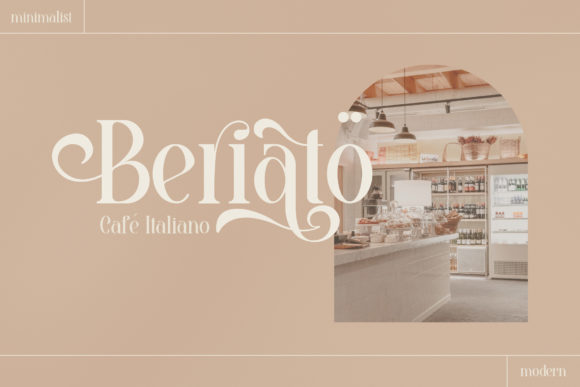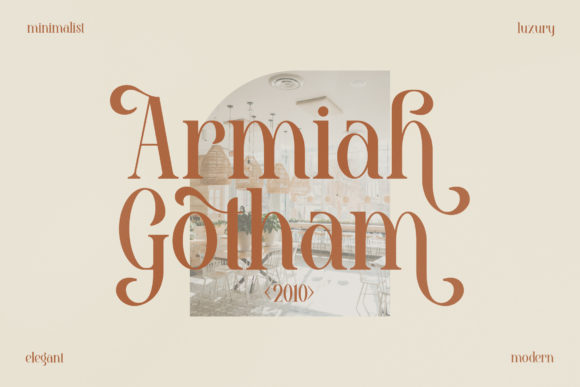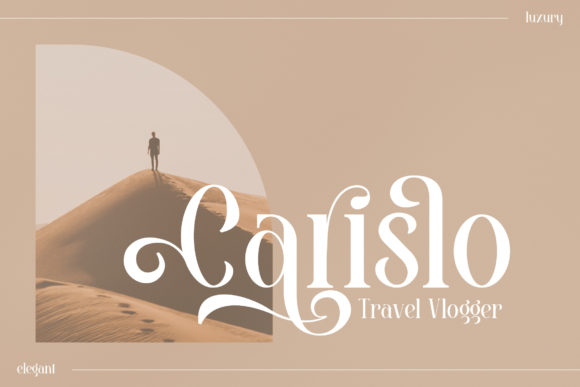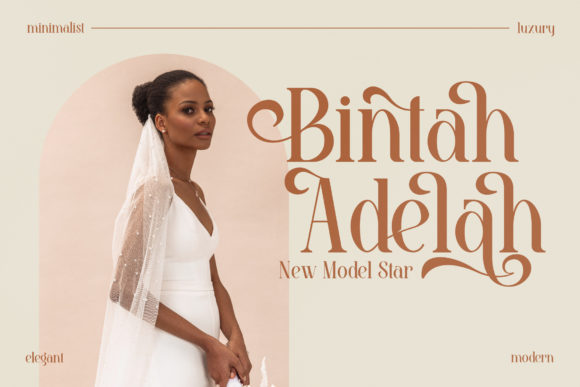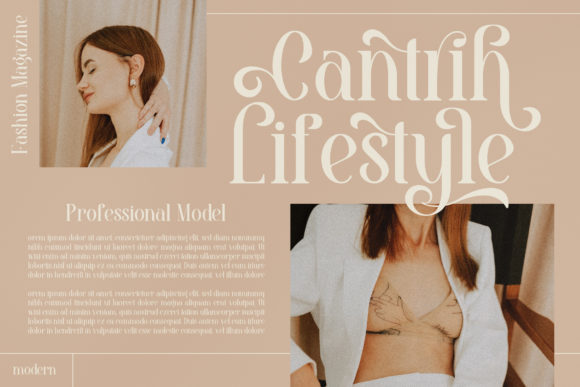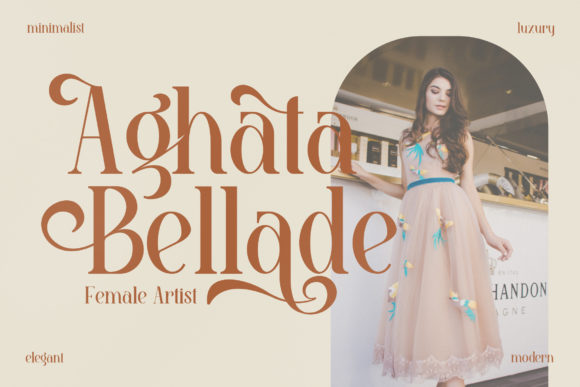
Introducing Barjiah Font: Elevate Your Designs with Luxury and Sophistication
In the world of typography, a well-crafted font can make all the difference in creating visually stunning designs. If you’re a designer, craft, or simply a creative enthusiast, you’re likely always on the lookout for unique and stylish fonts to elevate your projects. Look no further than Barjiah Font, a modern serif font that exudes luxury and sophistication.
What is Barjiah Font?
Barjiah Font is a stylish serif font that boasts modern and unique elements, making it perfect for a wide range of design applications. Its elegant and refined aesthetic is ideal for creating luxurious logos, book or movie title designs, fashion brands, magazine covers, clothes, lettering, quotes, and so much more.
Key Features of Barjiah Font
So, what sets Barjiah Font apart from other fonts? Here are some of its key features:
- Modern Serif Design: The font features a modern serif design with unique elements that give it a distinctive edge.
- Luxurious Aesthetic: Barjiah Font is perfect for creating luxurious designs that exude sophistication and elegance.
- Highly Versatile: The font is suitable for a wide range of design applications, from logos and branding to book titles, movie posters, and more.
Use Cases for Barjiah Font
Barjiah Font is an incredibly versatile font that can be used in a variety of design projects. Here are some use cases to get you started:
- Logos and Branding: Create a luxurious logo or brand identity with Barjiah Font that exudes sophistication and elegance.
- Book Titles and Movie Posters: Use Barjiah Font to create eye-catching book titles, movie posters, or DVD covers that grab attention.
- Fashion Brands: Elevate your fashion brand with Barjiah Font, perfect for creating stylish and luxurious branding, packaging, or advertising materials.
- Magazine Covers: Create stunning magazine covers with Barjiah Font that showcase your publication’s style and sophistication.
- Lettering and Quotes: Use Barjiah Font to create beautiful lettering and quotes that add a touch of elegance to any design project.
Why Choose Barjiah Font?
With so many fonts available, why choose Barjiah Font? Here are just a few reasons:
- Unique Design: Barjiah Font boasts a unique design that sets it apart from other serif fonts.
- High-Quality Design: Barjiah Font is designed to the highest standards, ensuring a crisp and clean appearance in any design project.
- Versatility: The font is suitable for a wide range of design applications, making it a valuable addition to any designer’s toolkit.
In conclusion, Barjiah Font is a stylish serif font that offers a unique blend of modern and luxurious elements. Its PUA encoding makes it easy to use and customize, while its versatility makes it suitable for a wide range of design applications. Whether you’re a designer, craft, or simply a creative enthusiast, Barjiah Font is an excellent choice for elevating your designs and adding a touch of sophistication and elegance.